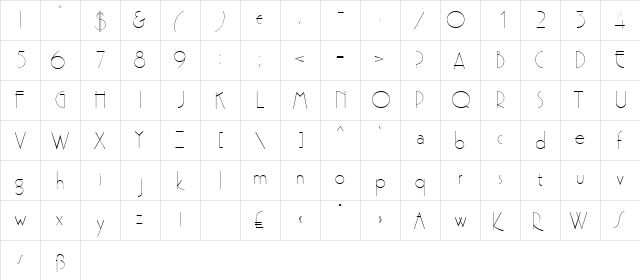
SohoSSK Regular
Design Context for SohoSSK Typeface
SohoSSK offers clean, dependable letterforms without strong stylistic allegiance, making it a practical choice for designers who need flexibility.
Pro Tip: Use SohoSSK in both headline and body roles to test its range before committing to a single application.